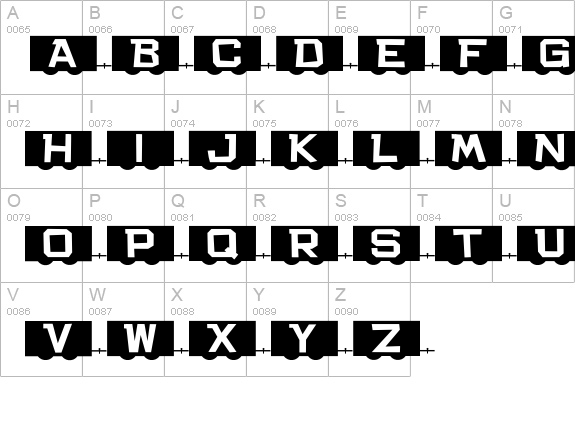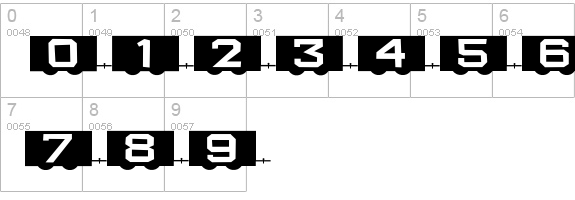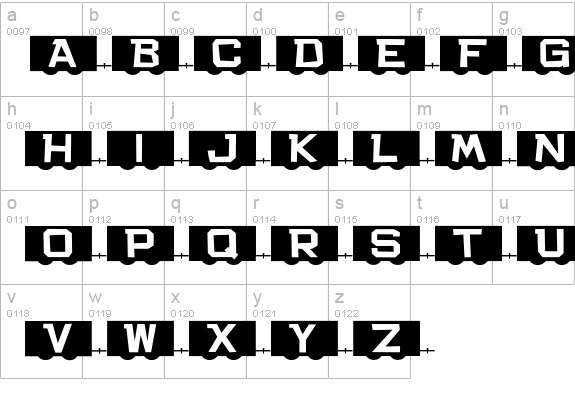
Rail Cars JL Font Details
Rail Cars JL is a unique and captivating font that will transport your designs to a whole new level. With its bold and dramatic letterforms, this font is perfect for creating eye-catching headlines, logos, and signage. Its sleek and modern aesthetic adds a touch of sophistication to any project, while maintaining a sense of playfulness. This font is freely available to download at FontsMarket.com, making it accessible to designers of all levels. Whether you are a seasoned professional or just starting out, Rail Cars JL is a great addition to your font collection. Its versatility allows it to be used in a variety of design contexts, from print to digital, and its legibility ensures that your message will be communicated clearly and effectively. Featuring a wide range of characters and special glyphs, Rail Cars JL offers endless possibilities for creative expression. Its clean lines and well-defined shapes make it incredibly versatile, allowing for seamless integration into any design concept. Whether you are looking to create a futuristic sci-fi poster or a vintage-inspired logo, this font has got you covered. One of the standout features of Rail Cars JL is its ability to evoke a sense of movement and energy. The bold strokes and dynamic curves give each letter a sense of motion, making it the perfect choice for projects related to transportation, sports, or adventure. With Rail Cars JL, your designs will truly come alive, capturing the attention and imagination of your audience. In conclusion, Rail Cars JL is a free font that combines style, versatility, and legibility. It is the ideal choice for designers looking to make a bold statement and add a touch of excitement to their projects. Download Rail Cars JL today at FontsMarket.com and unlock a world of creative possibilities.